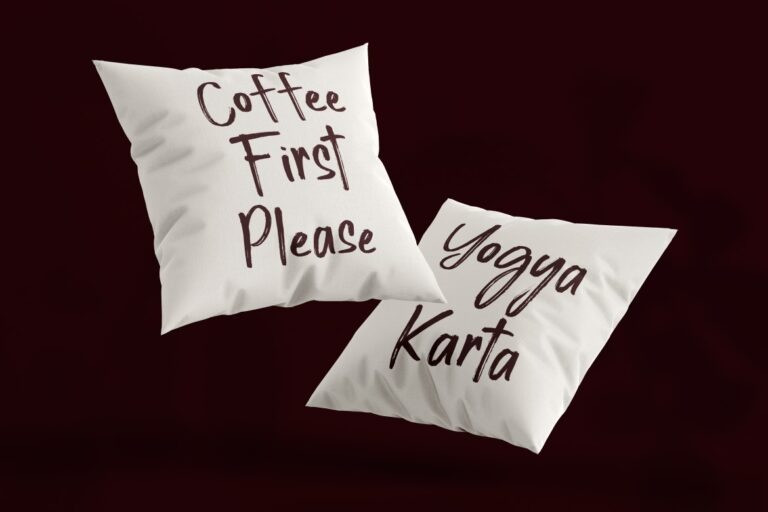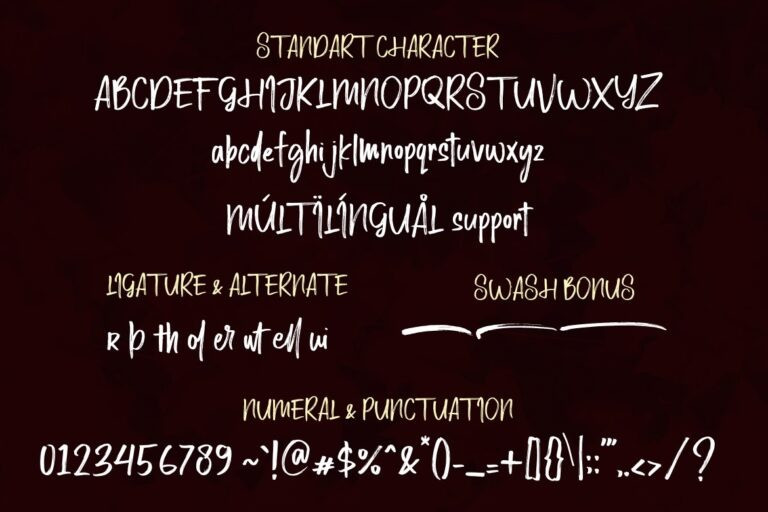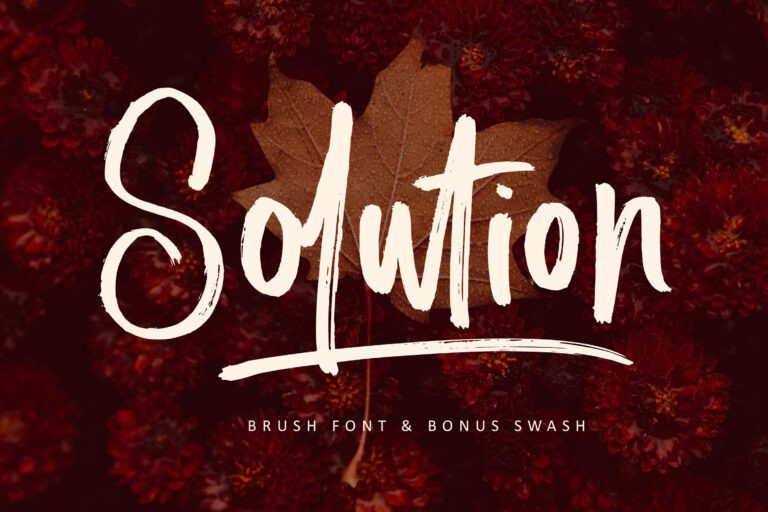
Solution Brush Font
Solution Font is a Dry Brush and beautiful handwritten font with an incredibly organic feel. It will put a strong and urban twist on any design project like poster, logo, advertisement